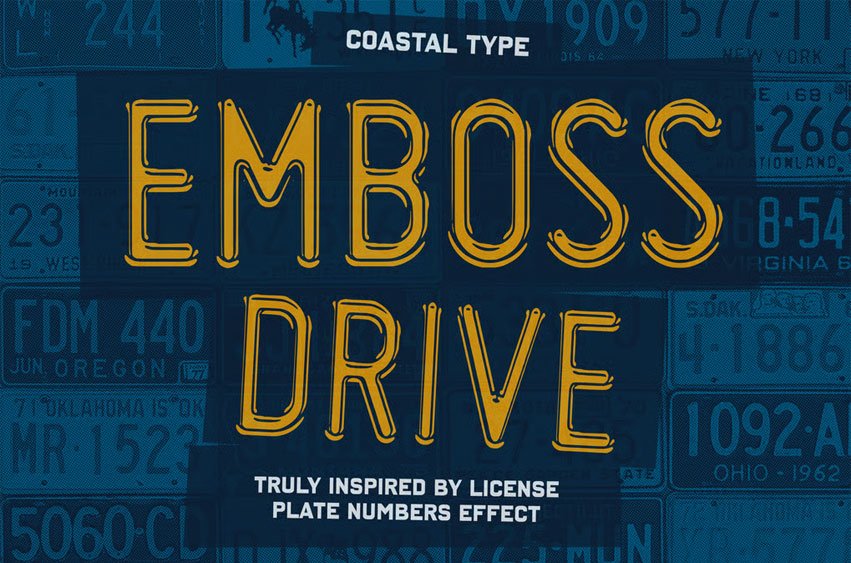
Emboss Drive Font is a bold, standout typeface inspired by the rugged charm of vehicle license plates. Its striking embossed effect creates a sense of depth and dimension, making it perfect for designs that demand attention.
Tailored to shine against dark backgrounds, Emboss Drive delivers a modern yet nostalgic aesthetic, ideal for branding, signage, and creative projects that need an industrial edge with a polished finish. Get ready to drive your designs forward with this unique and versatile font!
- Uppercase Only